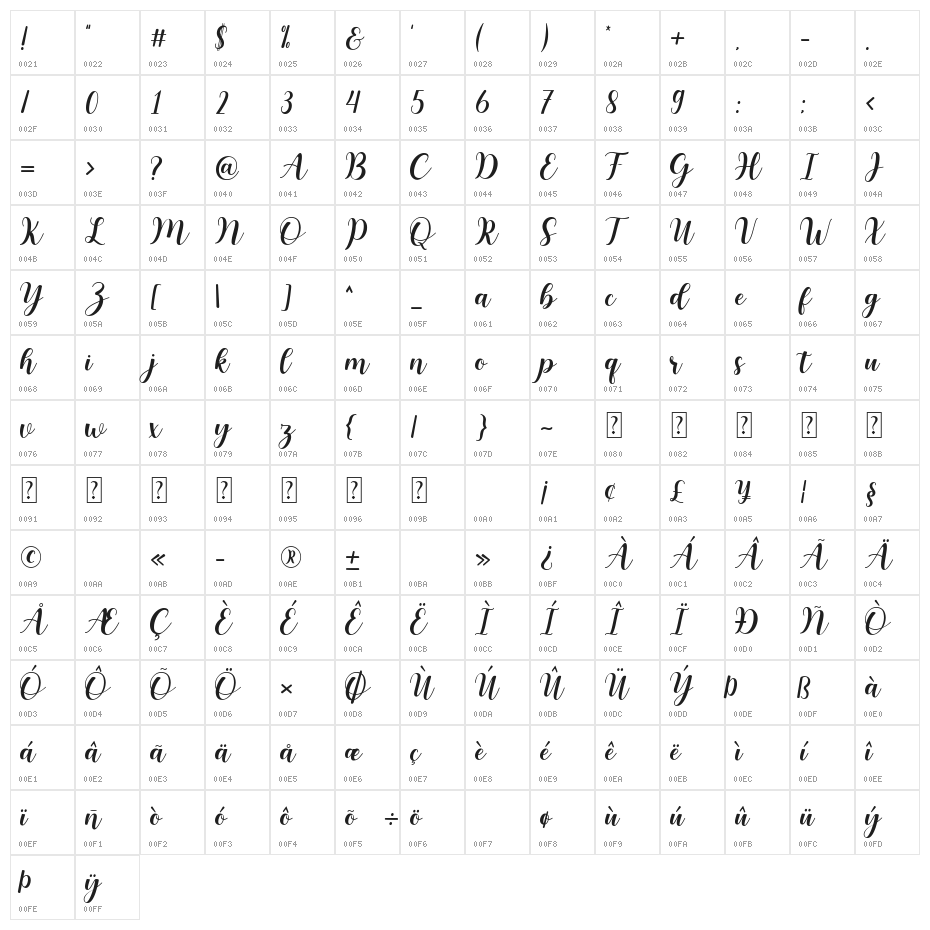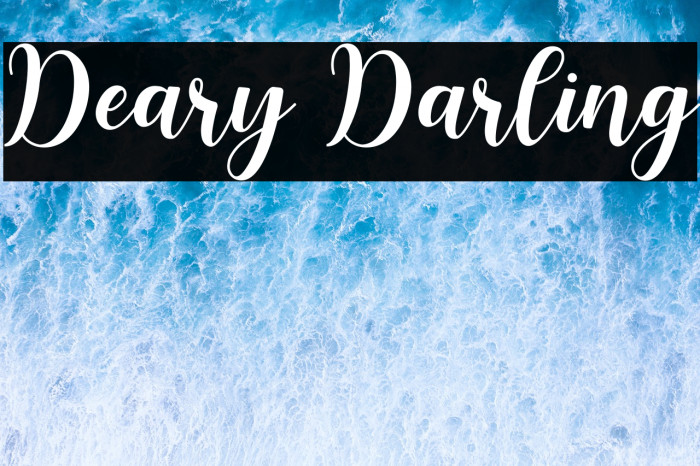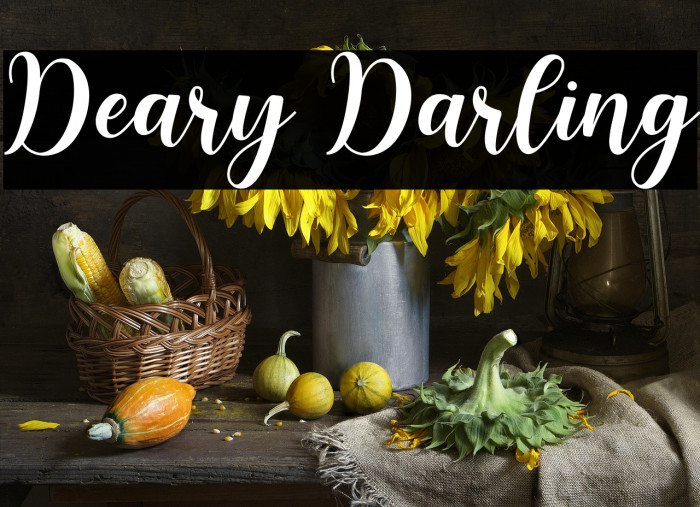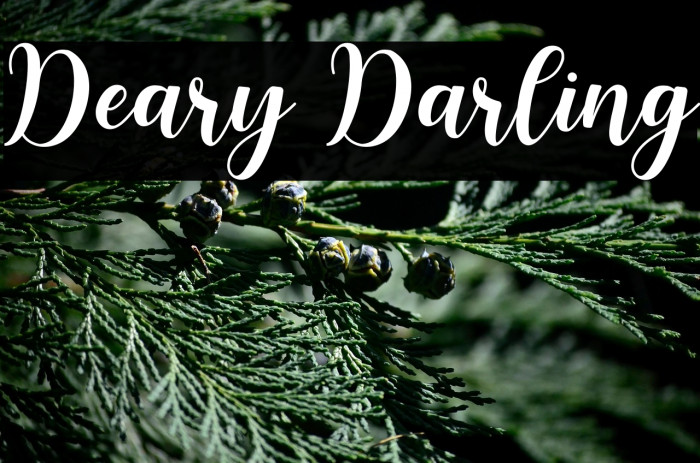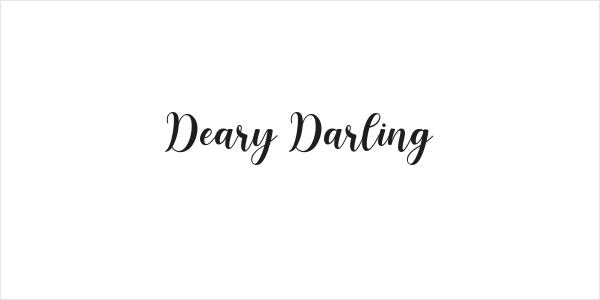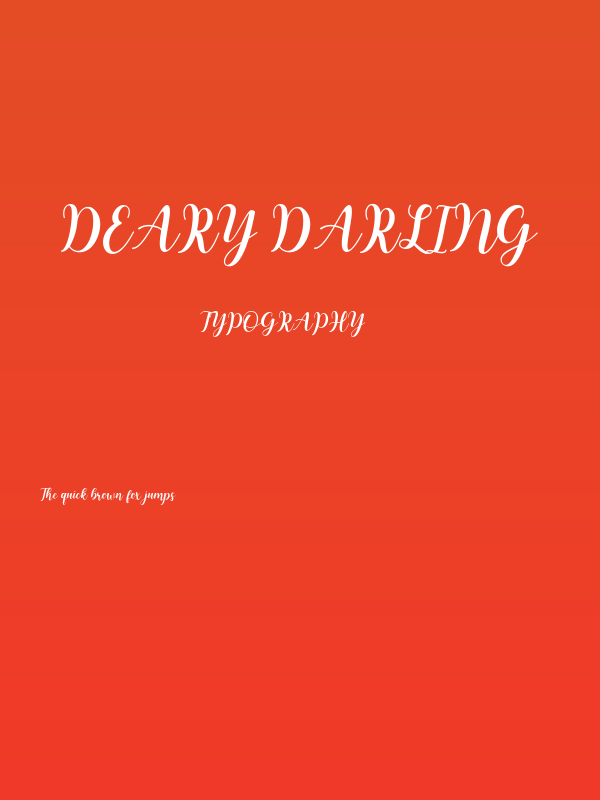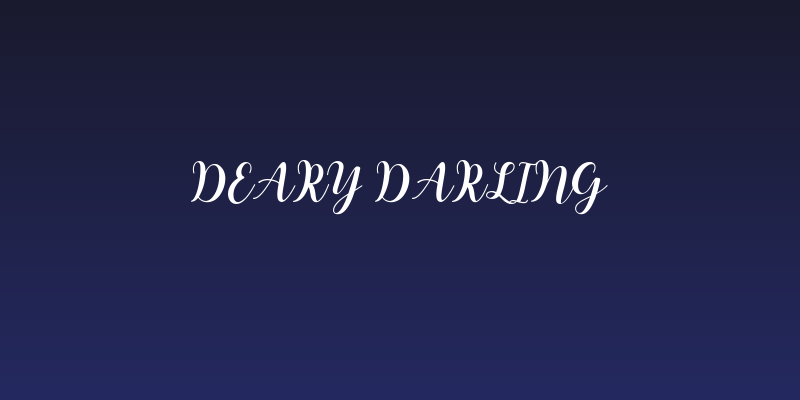
Deary Darling Font
This font exudes a charming and elegant script style, characterized by its flowing, cursive letterforms. The uppercase letters are slightly more formal, with graceful loops and swashes that add a touch of sophistication. The lowercase letters maintain a consistent fluidity, making them highly legible while retaining an artistic flair. The numerals are stylishly integrated, matching the overall aesthetic with their smooth curves. Special characters are thoughtfully designed, ensuring they complement the rest of the typeface. This font is perfect for projects that require a personal, handwritten touch, such as invitations, greeting cards, or branding materials.
| Overall Style | Elegant, Decorative |
| Use Case | Headlines, Invitations, Branding |
| Proposed Projects | Ideal for wedding invitations, greeting cards, personal branding, and elegant packaging. |